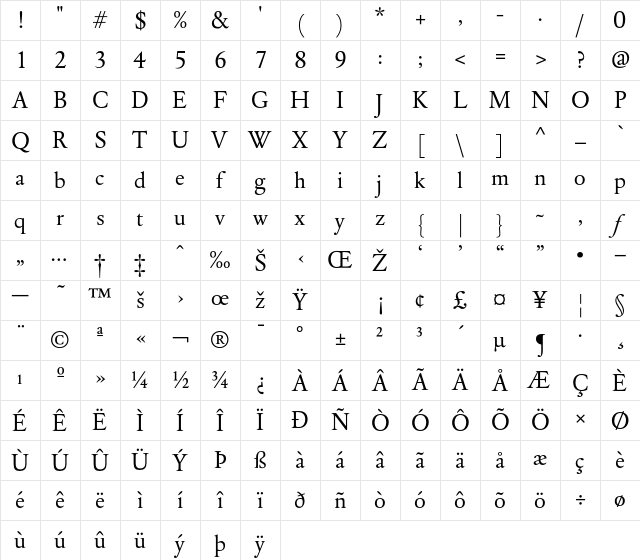
DTLElzevirT Regular
DTLElzevirT Family
Design Context for DTLElzevirT
DTLElzevirT is a composed and adaptable typeface that performs quietly and consistently across a wide range of design contexts.